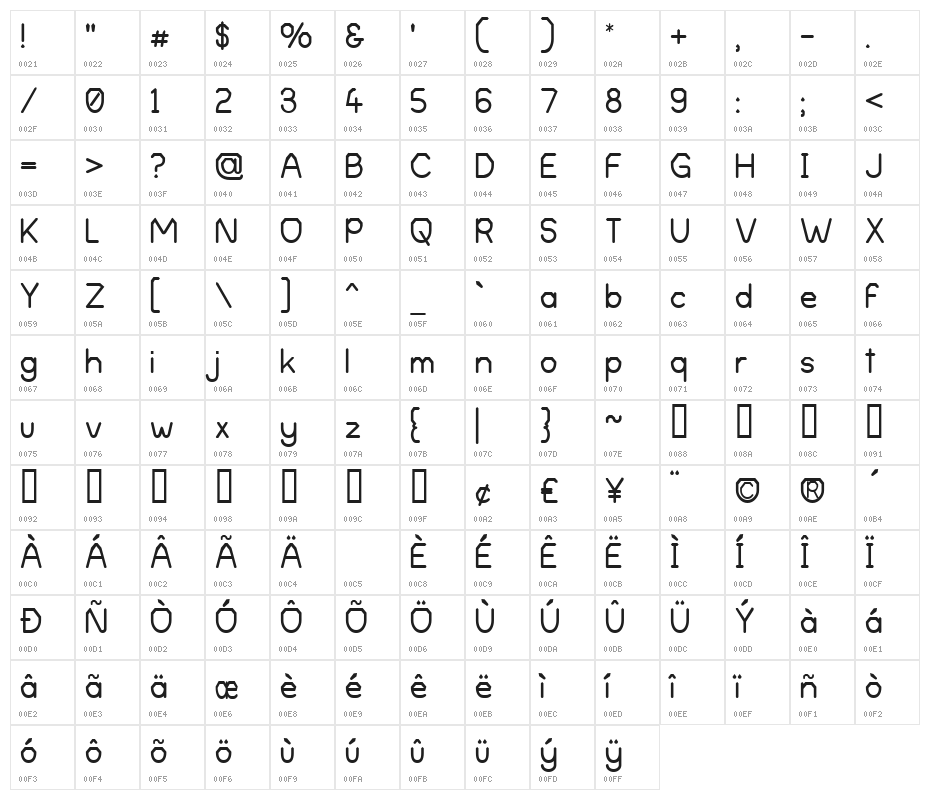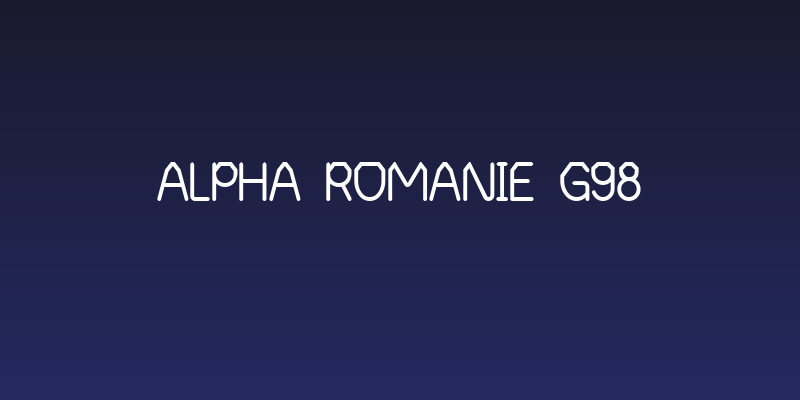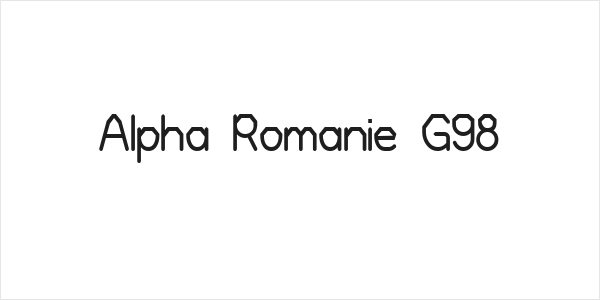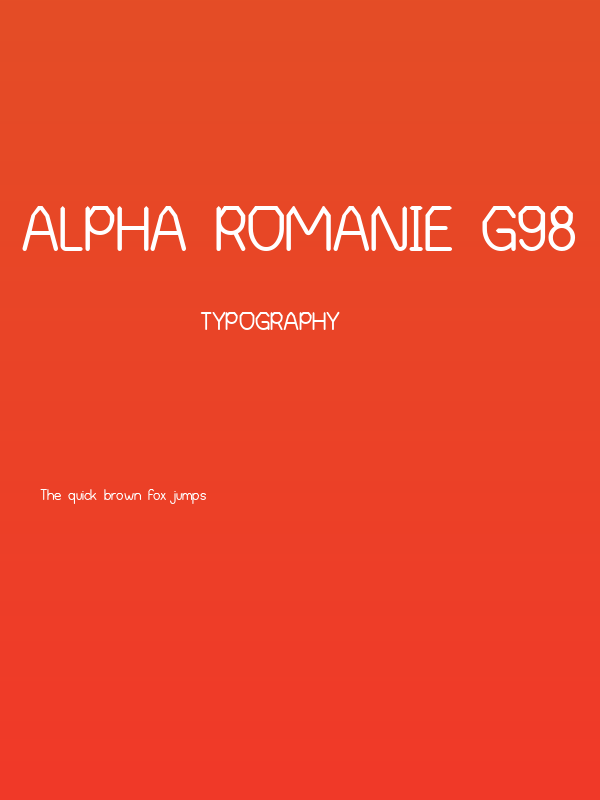
Alpha Romanie G98 Font
Alpha Romanie G98 Description
This font features a modern, geometric design with clean, rounded edges and a uniform stroke width. The characters are constructed with a consistent line weight, giving it a cohesive and structured appearance. The uppercase and lowercase letters maintain a similar style, with a slight variation in height and width to distinguish them. The numerals and special characters are designed to match the overall aesthetic, ensuring a seamless integration across different uses. This font is versatile, suitable for both digital and print media, and can be used in various design projects that require a contemporary and approachable look.
| Proposed Projects | Ideal for branding, web design, posters, and packaging that require a modern and clean aesthetic. |